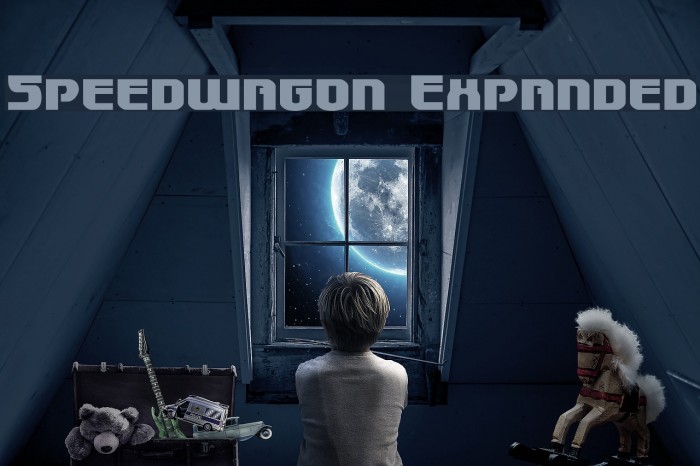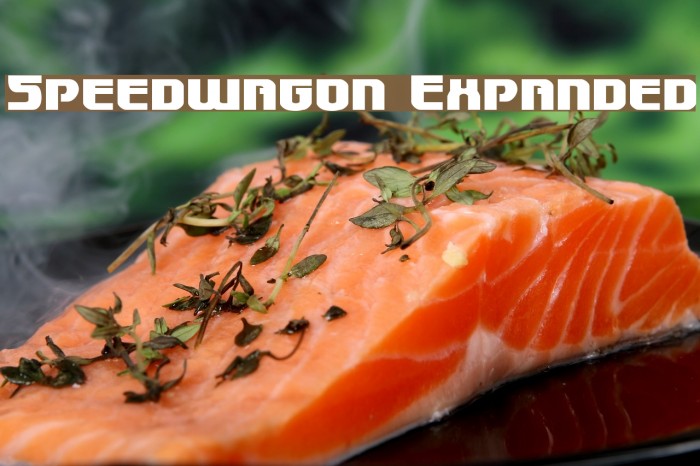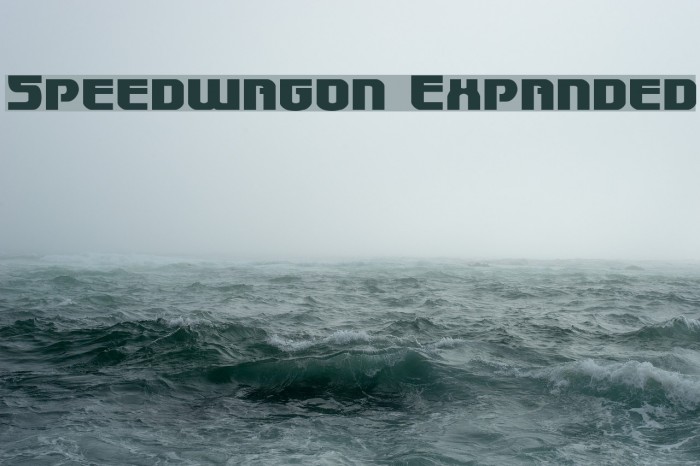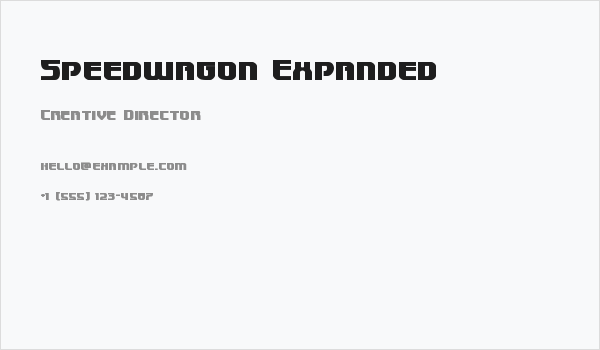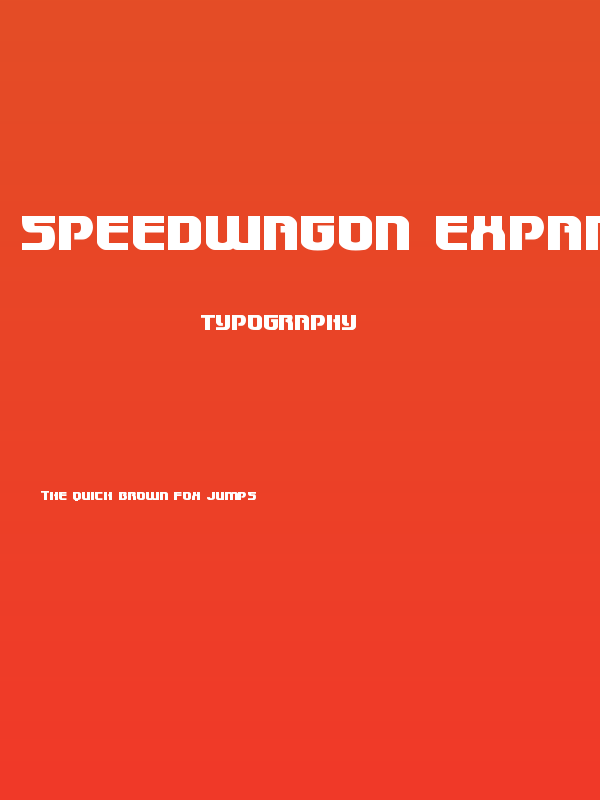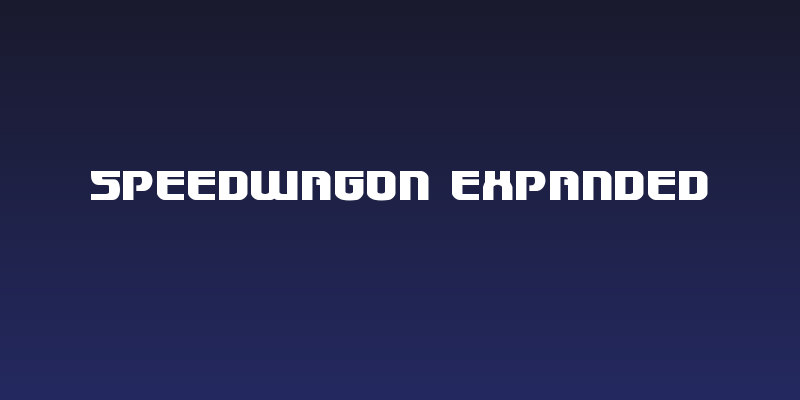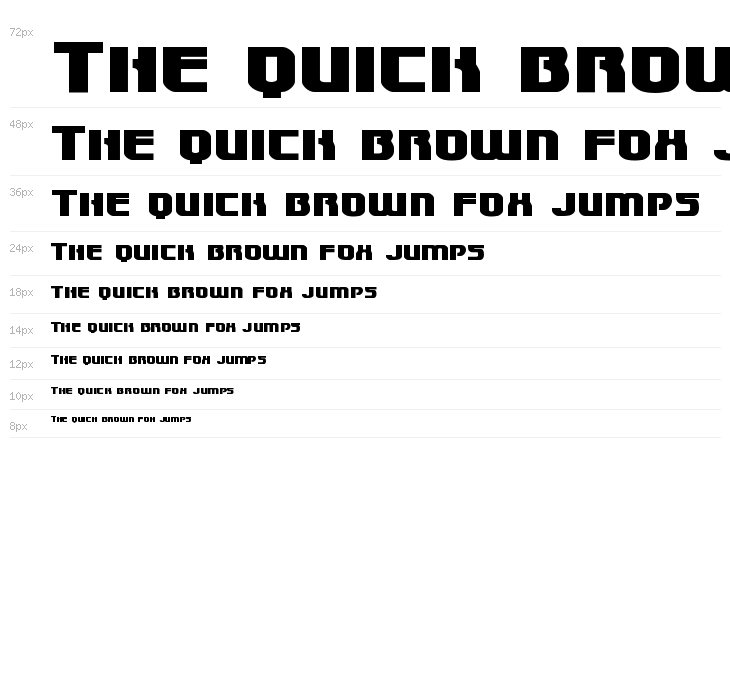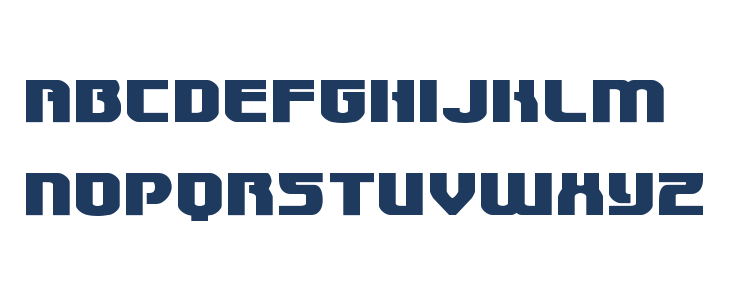
Speedwagon Expanded Font
Speedwagon Expanded Description
This font features a bold, geometric design with a strong presence. The characters are blocky and wide, giving a sense of stability and strength. The uppercase and lowercase letters maintain a consistent style, with sharp angles and straight lines that create a modern and industrial feel. The numbers and special characters follow the same design principles, ensuring uniformity across all glyphs. This font is ideal for making a bold statement, with its expanded width and high impact appearance.
| Proposed Projects | Ideal for branding, posters, headlines, and any design project that requires a strong, impactful typeface. |